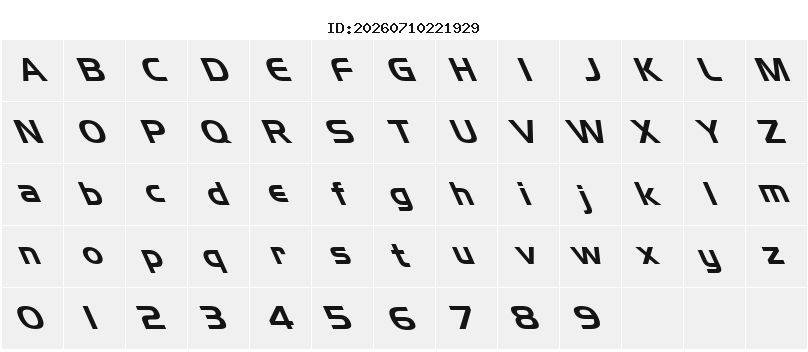
• Font Name: Handel Gothic Leftified
• Full Font Name: Handel Gothic Leftified
About Handel Gothic Leftified.ttf
Handel Gothic Leftified.ttf is a modern, elegant sans-serif font designed for ultimate readability and visual harmony. Perfect for branding, headlines, web design, and print materials.